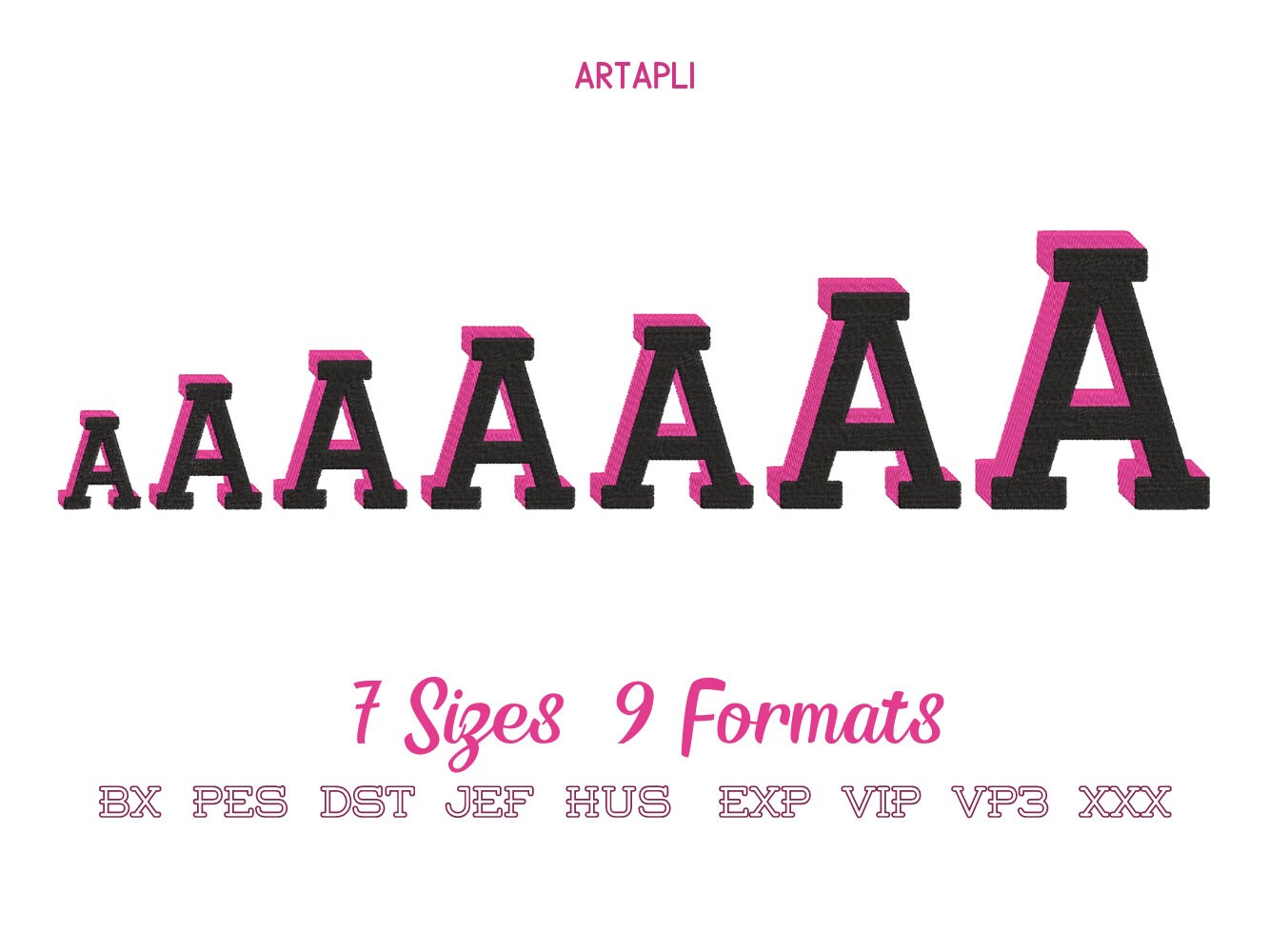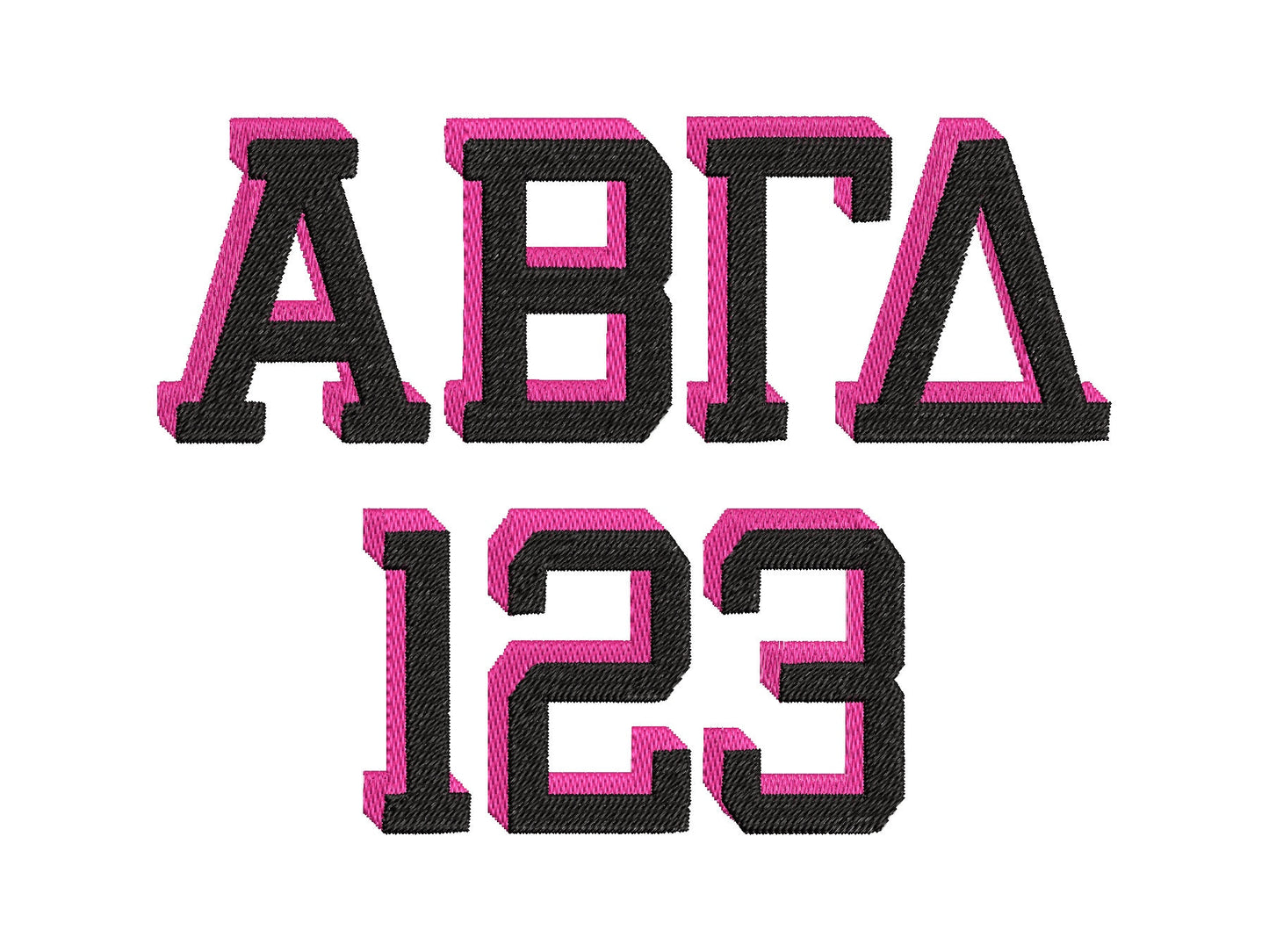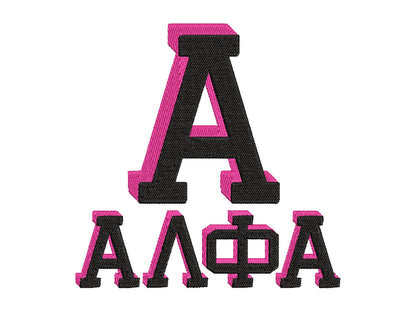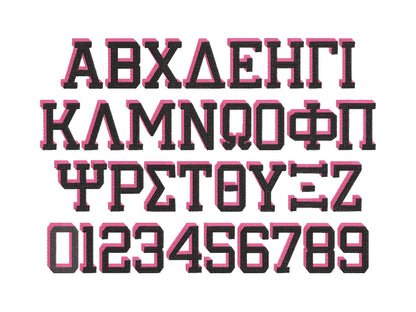
Varsity Block Shadow Sororities Greek Font
Varsity block type GREEK Font Shadow alphabet fill stitch machine embroidery designs in multiple sizes letters numbers with shadow, BX incl
block type GREEK Font Shadow alphabet fill stitch machine embroidery designs in multiple letters numbers with shadow monogram Whole GREEK alphabet uppercase letters and numbers.